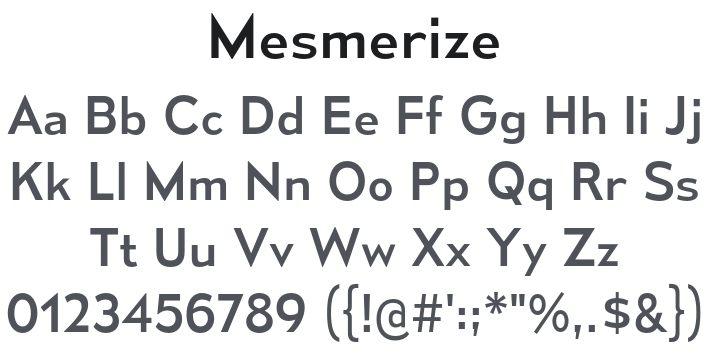
Mesmerize Font Family
About Mesmerize
Mesmerize is a clean, low x-height geometric sans-serif with a quietly sophisticated character — its tall capitals and short lowercase letters give it a distinctive, elegant proportion that feels both retro and contemporary. An impressive 80 styles across 8 weights, 5 widths, and italics make it a genuinely versatile workhorse. Great for editorial design, corporate branding, UI text, packaging, and any project needing refined, systematic typographic control.